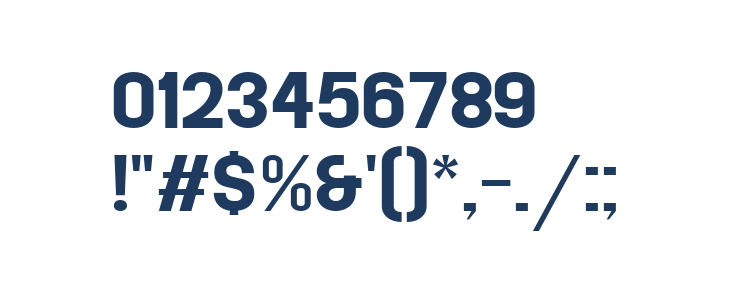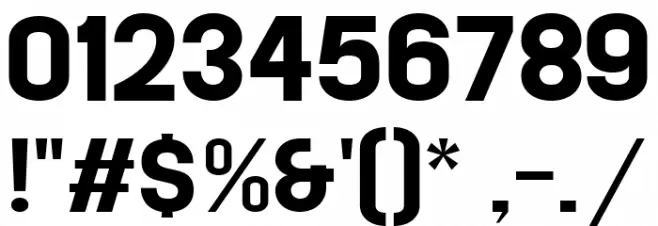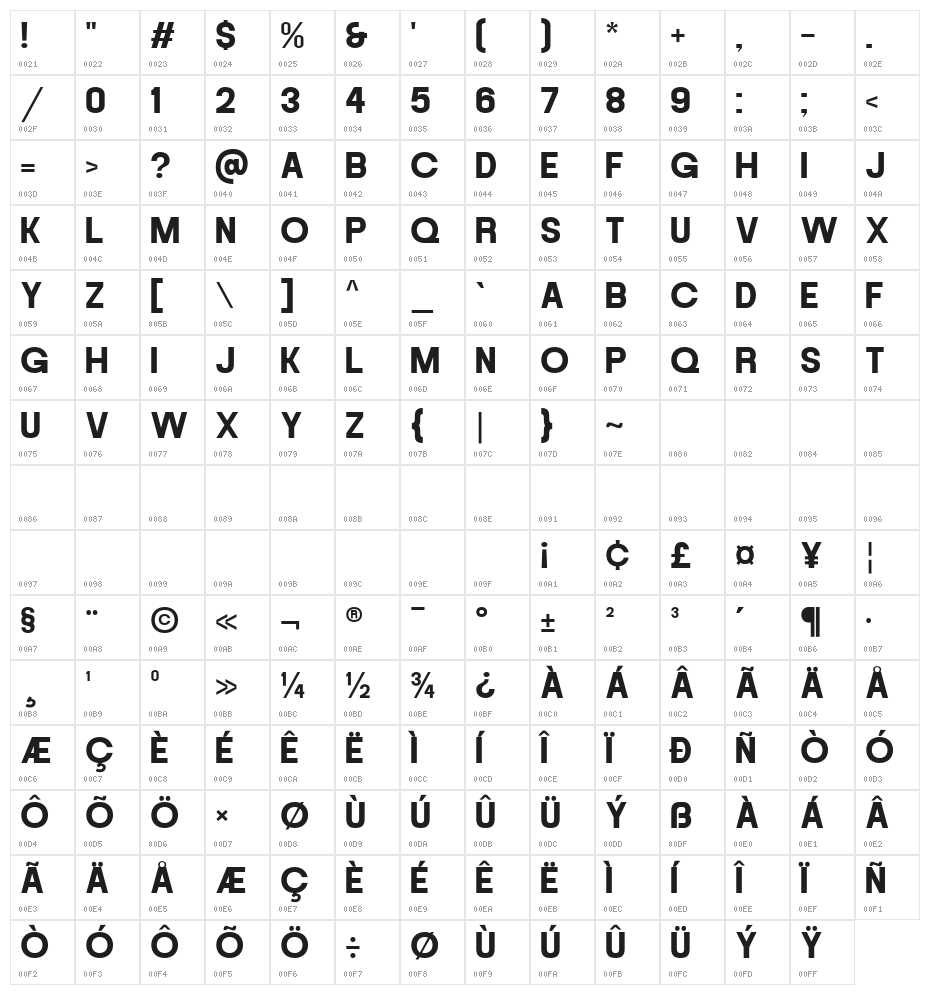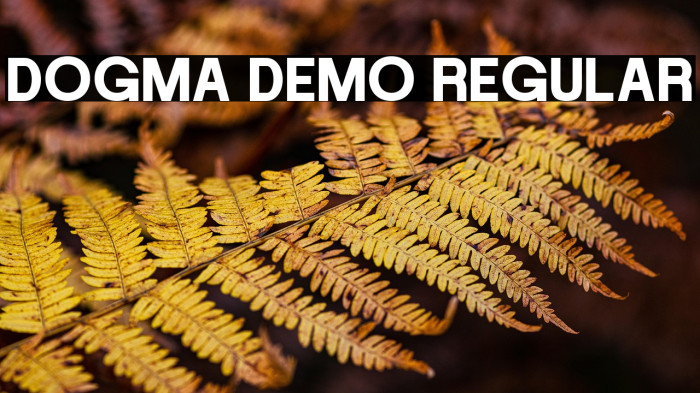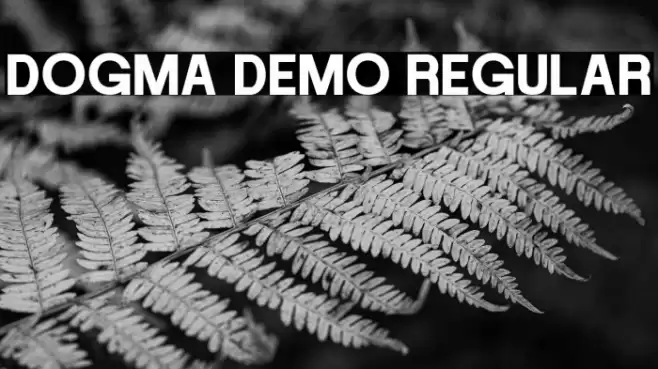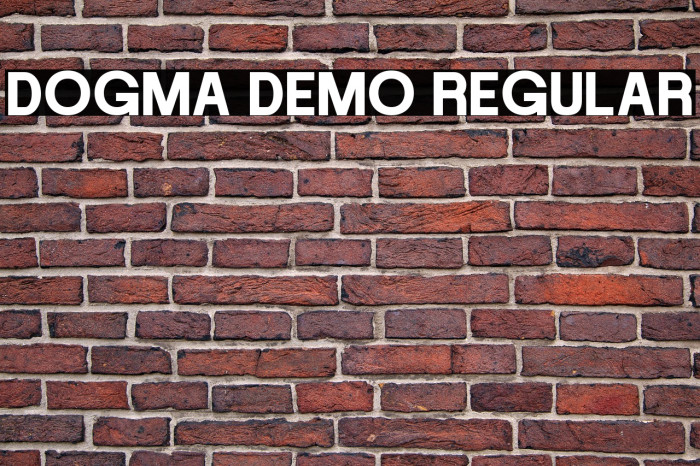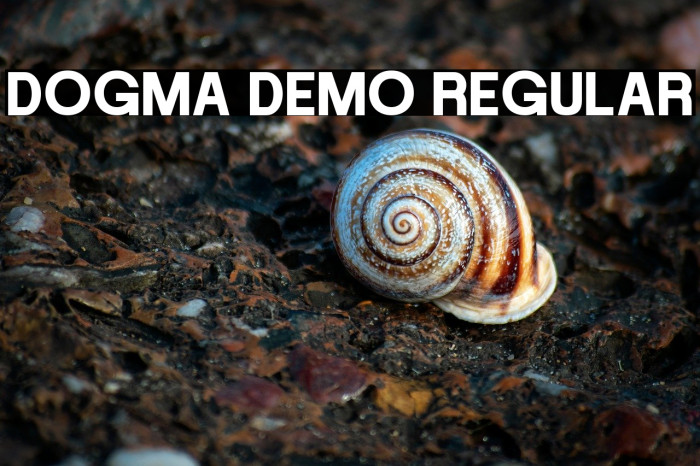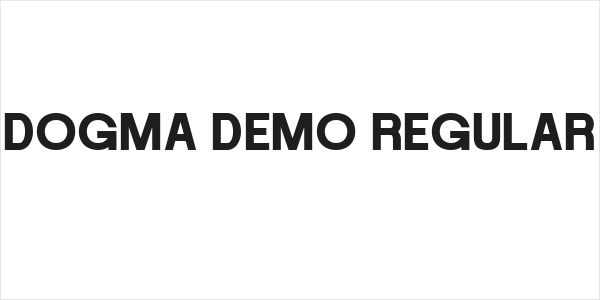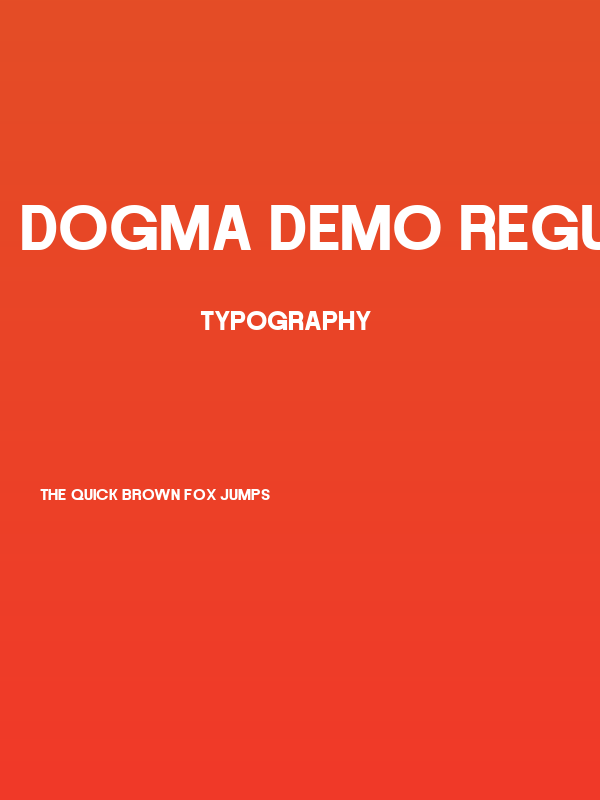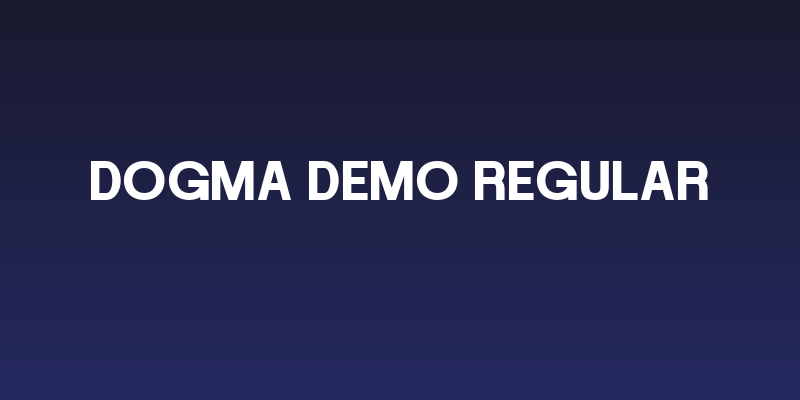
DOGMA DEMO Regular Font
DOGMA DEMO Regular Description
This font exhibits a bold and assertive style, characterized by its thick strokes and strong presence. The uppercase and lowercase letters maintain a consistent weight, contributing to a uniform appearance. The numerals are equally bold, ensuring visibility and impact. Special characters are designed with the same robustness, making them suitable for various applications. The overall design is modern and clean, with a focus on clarity and readability. This font is ideal for projects that require a strong visual statement, such as headlines, posters, and branding materials.
| Proposed Projects | Ideal for headlines, posters, branding, and any design that requires a bold statement. |